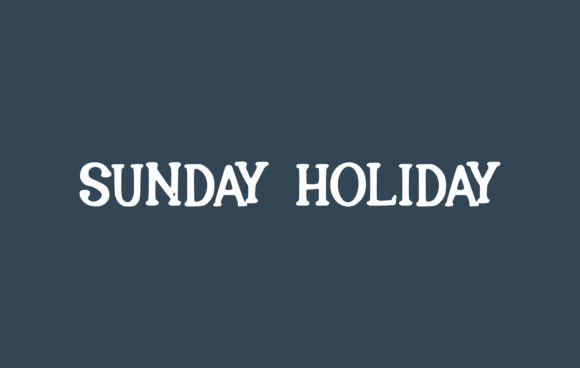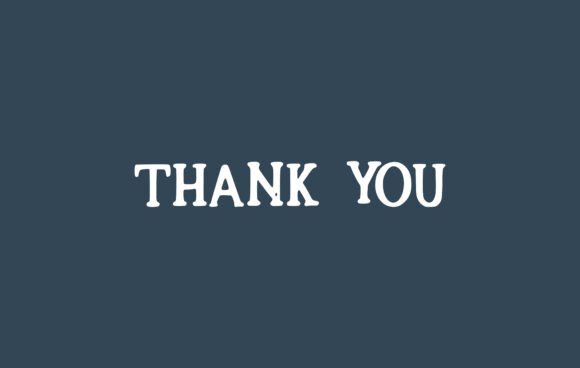
The Magic of Handwritten Fonts
There’s something special about a handwritten note or a beautifully crafted sign that evokes emotions and makes us feel more connected. Remember the last time you stumbled upon a handwritten quote or a lovely invitation that made you smile? That’s the magic of handwritten fonts, and today, we’re going to talk about one that will surely capture your heart – Crafty Chortles Font.
This authentic handwritten font is designed to add a romantic touch to your creative projects, making it a true favorite among designers. With its legibility and versatility, Crafty Chortles Font is perfect for magazine headlines, social media, branding, wedding invitations, and more. Whether you’re a seasoned designer or just starting out, this font has the potential to take your ideas to the next level and leave a lasting impression on your audience.
Crafty Chortles Font Key Features
- Unique Characteristics: Features a playful, hand-drawn style with irregularities and imperfections that add a touch of whimsy and personality to text.
- Kerning and Ligatures: Includes expertly crafted kerning and ligatures to ensure smooth text flow and a polished appearance.
Crafty Chortles Font Review
I recently had the chance to work with the Crafty Chortles Font, and I must say it’s a unique addition to any design project. ✨ The font’s playful, handwritten feel immediately grabs attention and adds a touch of whimsy to text. It’s perfect for titles, headings, and any other situation where you want to convey a sense of fun and personality.
- ✨ Highly expressive and versatile, making it suitable for various design projects.
- ✨ The font’s irregularities and imperfections give it a charming, handmade feel.
- ✨ Works well in combination with other fonts to create a balanced and visually appealing design.
However, there are a few limitations to keep in mind. ⚠️ The font’s irregularities can sometimes make it difficult to read, especially in smaller font sizes. Additionally, the font’s character set is somewhat limited, which may not be ideal for projects that require a wide range of characters.
Overall, I’m impressed with the Crafty Chortles Font. While it may not be the best choice for every project, it’s a great addition to any designer’s toolkit. With its playful feel and high level of expressiveness, it’s sure to add a touch of personality to any design.
Getting the Most Out of Crafty Chortles Font
For best results, use Crafty Chortles Font with bold or italic text to create a playful, whimsical effect.
Experiment with different font sizes and combinations to add visual interest to your designs.
Crafty Chortles Font is perfect for:
Children’s books and educational materials
Party invitations and decorations
Marketing materials for fun and quirky brands
Alternatives to Crafty Chortles Font
Great Vibes Font is a beautiful, elegant script font perfect for creating a sophisticated and luxurious feel. It’s ideal for wedding invitations, branding, and any design that requires a touch of class. In comparison to Crafty Chortles Font, Great Vibes Font is more refined and less playful, making it a better choice for formal designs.
Pacifico Font is a modern, cursive font that exudes a sense of calmness and serenity. It’s perfect for designs that require a relaxed and laid-back feel, such as beach-themed projects or wellness branding. Unlike Crafty Chortles Font, Pacifico Font is more subtle and understated, making it a great choice for designs that need a touch of sophistication without being too flashy.
Dancing Script Font is a lively and energetic script font that’s perfect for creating a fun and playful atmosphere. It’s ideal for designs that require a sense of excitement and enthusiasm, such as event invitations, promotional materials, or social media graphics. While Crafty Chortles Font is also playful, Dancing Script Font is more energetic and attention-grabbing, making it a great choice for designs that need to stand out.